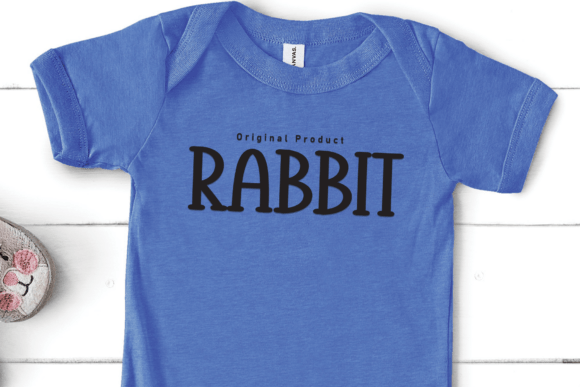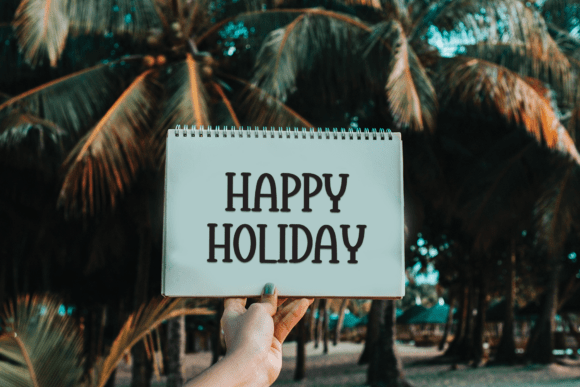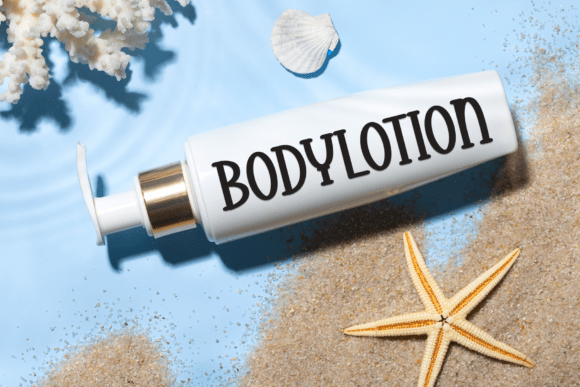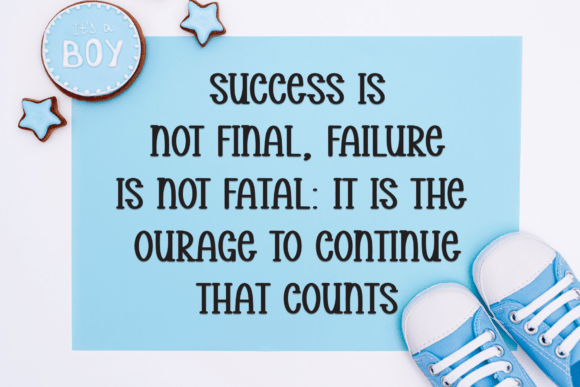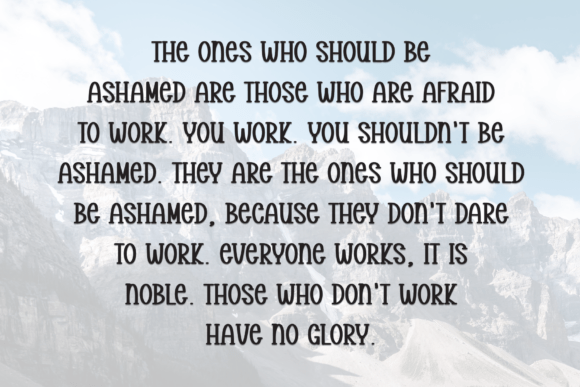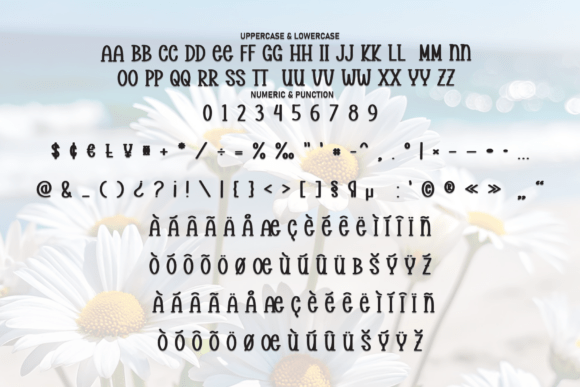
Where Typography Meets Whimsy
Have you ever stumbled upon a font that instantly transports you to a sunny beach on a warm summer day? For designers and creatives, finding the perfect font can be a game-changer. It’s that magical moment when the right typography brings a project to life and sets the tone for a captivating story.
Enter the enchanting world of Daisy Beach Font, a handcrafted masterpiece designed to spread joy and warmth. This delightful font is perfect for wedding invitations, festive cards, and playful design projects that require a touch of whimsy. As a designer, you’ll appreciate the versatility and charm of Daisy Beach Font, which can elevate your creative ventures and leave a lasting impression on your audience.
Daisy Beach Font Key Features
- Unique Characteristics: Daisy Beach Font features a unique, hand-drawn design with subtle texture and imperfections, giving it a natural, beachy feel.
Daisy Beach Font Review
I recently had the chance to work with the Daisy Beach font, and I have to say, it’s a beautiful addition to any design project. ✨ The font’s playful, whimsical feel is perfect for capturing the essence of a summer vibe, making it ideal for beach-themed projects, children’s books, or even wedding invitations.
- ✨ Unique, hand-drawn feel that adds a touch of personality to designs
- ⚠️ Some character styles may not be suitable for smaller text sizes, due to their intricate details
Overall, I’m impressed with the Daisy Beach font, and I think it’s a great addition to any designer’s toolkit. While it may have some limitations, its unique feel and high level of customization make it a valuable asset for designers looking to add some personality to their projects.
Tips for Getting the Most Out of the Daisy Beach Font
1. Use the font in conjunction with other beach-themed graphics and images for a cohesive look.
2. Experiment with different font sizes and styles to create visual interest.
3. Use the font to create headings and titles for a clear and organized design.
1. Beach-themed invitations and party decor.
2. Summer-themed advertising and marketing materials.
3. Personalized beach-inspired gifts and merchandise.